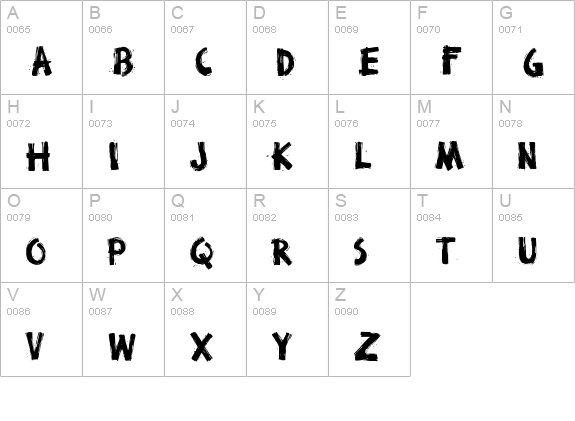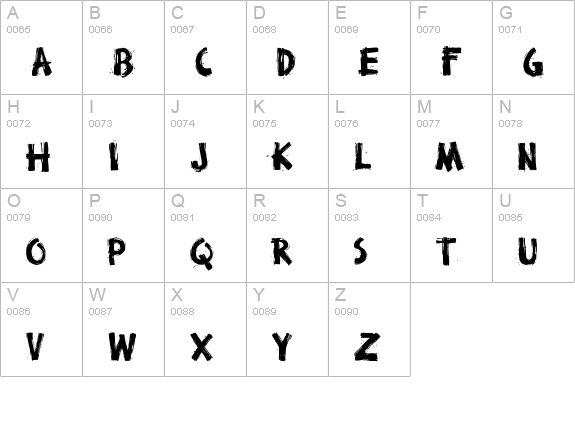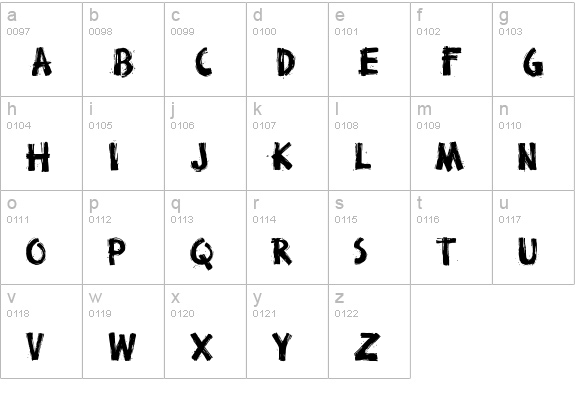
Broken Stick Font Details
Broken Stick font is a unique and creative typeface that exudes a sense of edginess and modernity. Its broken and irregular letter shapes give it a distinct and eye-catching appearance, making it perfect for projects that require a bold and unconventional look. The font's rough edges and uneven strokes add a touch of authenticity and rawness, making it stand out from the crowd. What's even better is that Broken Stick font is available for free download at FontsMarket.com, allowing you to easily access and use this striking typeface in your design projects without any cost. Whether you're working on posters, logos, websites, or any other creative endeavor, Broken Stick font is sure to make a bold statement and leave a lasting impression. Download it today and let your creativity run wild with this one-of-a-kind font.